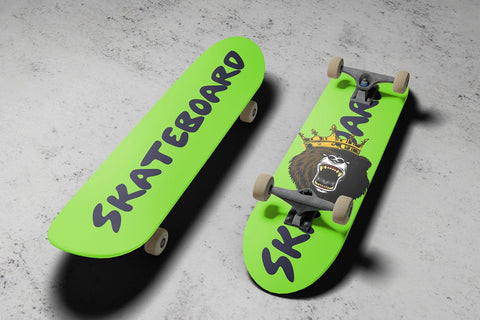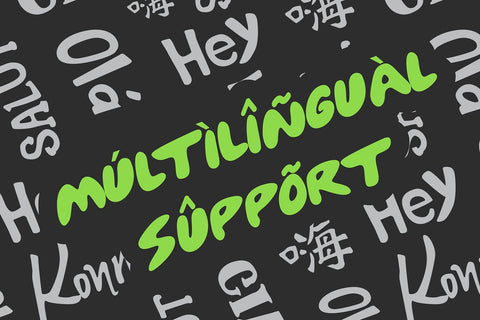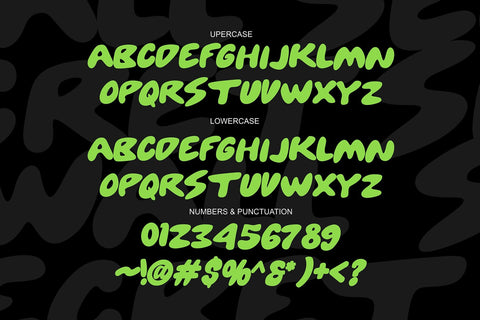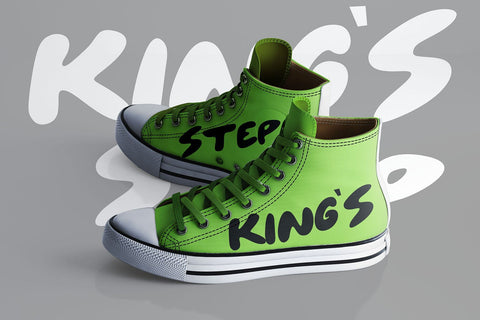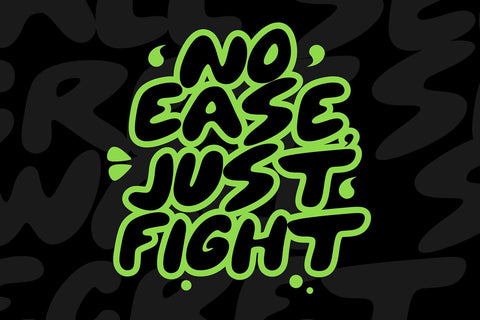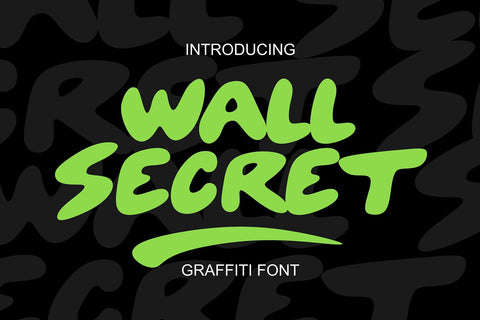
Wall Secret – Bold Smooth Graffiti Font
Wall Secret is a bold and smooth graffiti font that brings the energy of street art into your designs. Its rounded yet powerful letterforms create a friendly and approachable urban vibe, making it perfect for streetwear logos, music posters, merchandise, and bold branding projects. The clean curves and dynamic shapes capture the spirit of modern graffiti while keeping the design highly legible.
Whether you’re creating apparel graphics, product packaging, or eye-catching social media visuals, Wall Secret delivers a stylish urban aesthetic that stands out. Add an expressive street culture touch to your creative work and make every word pop with personality.